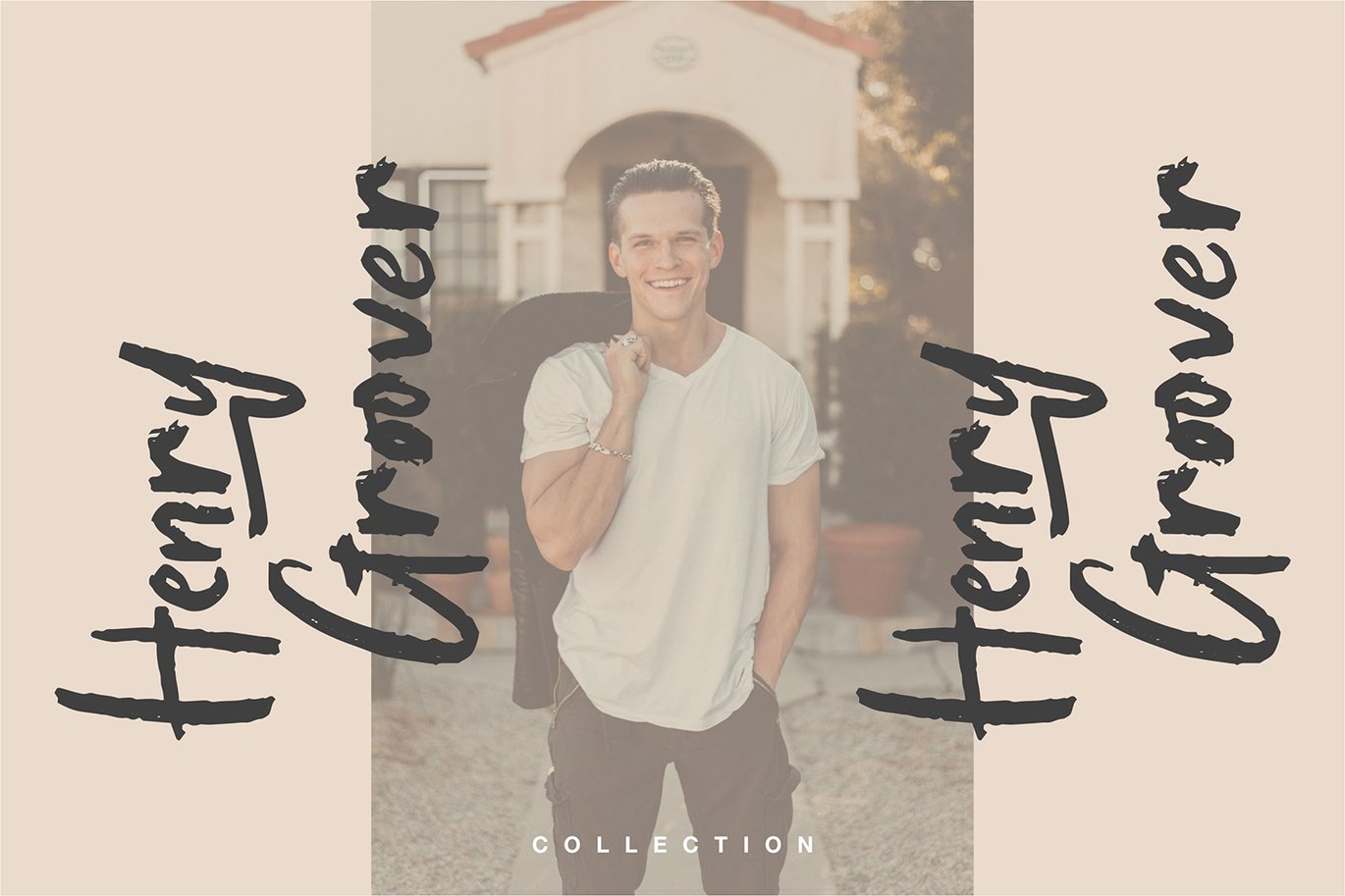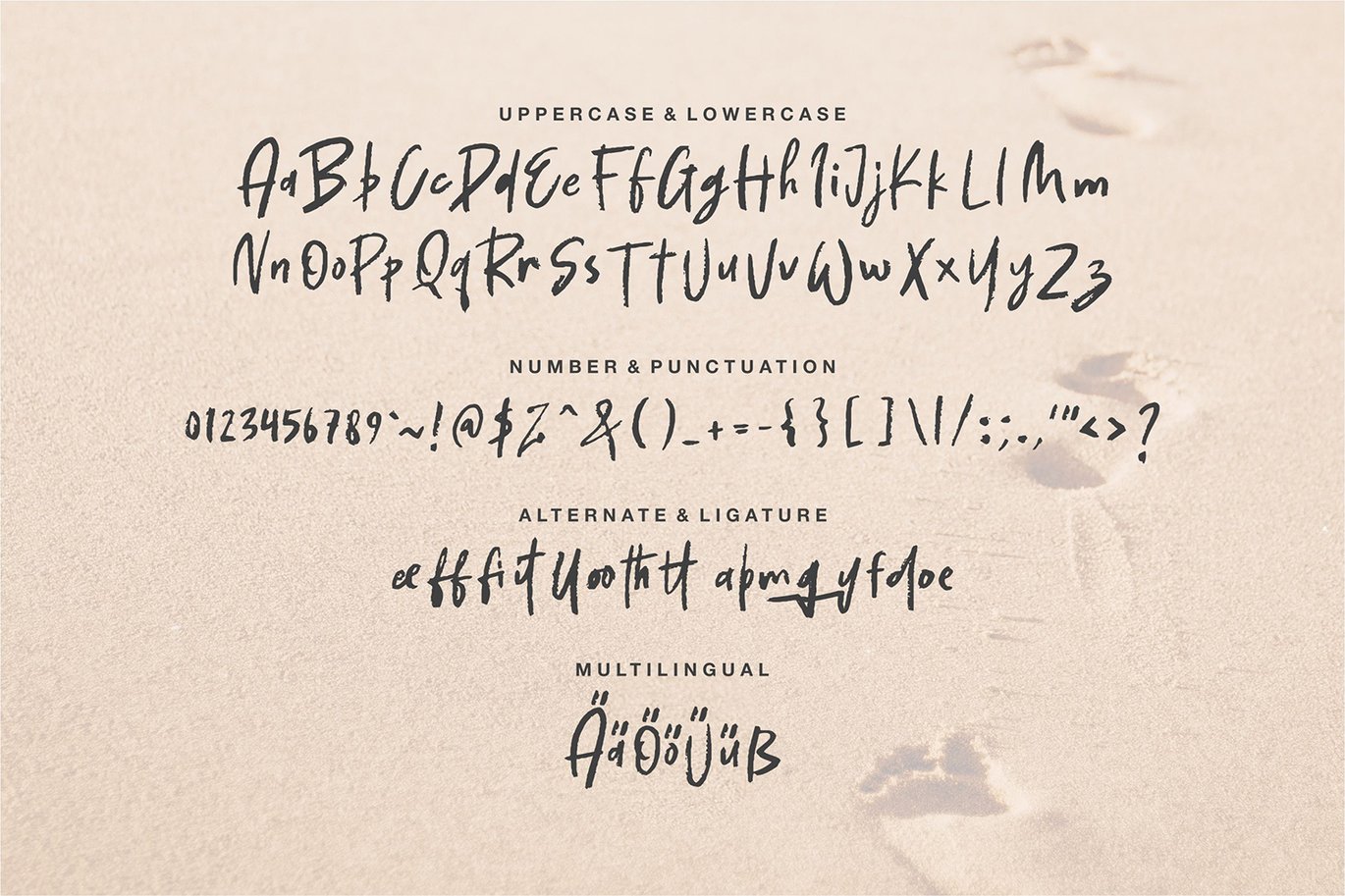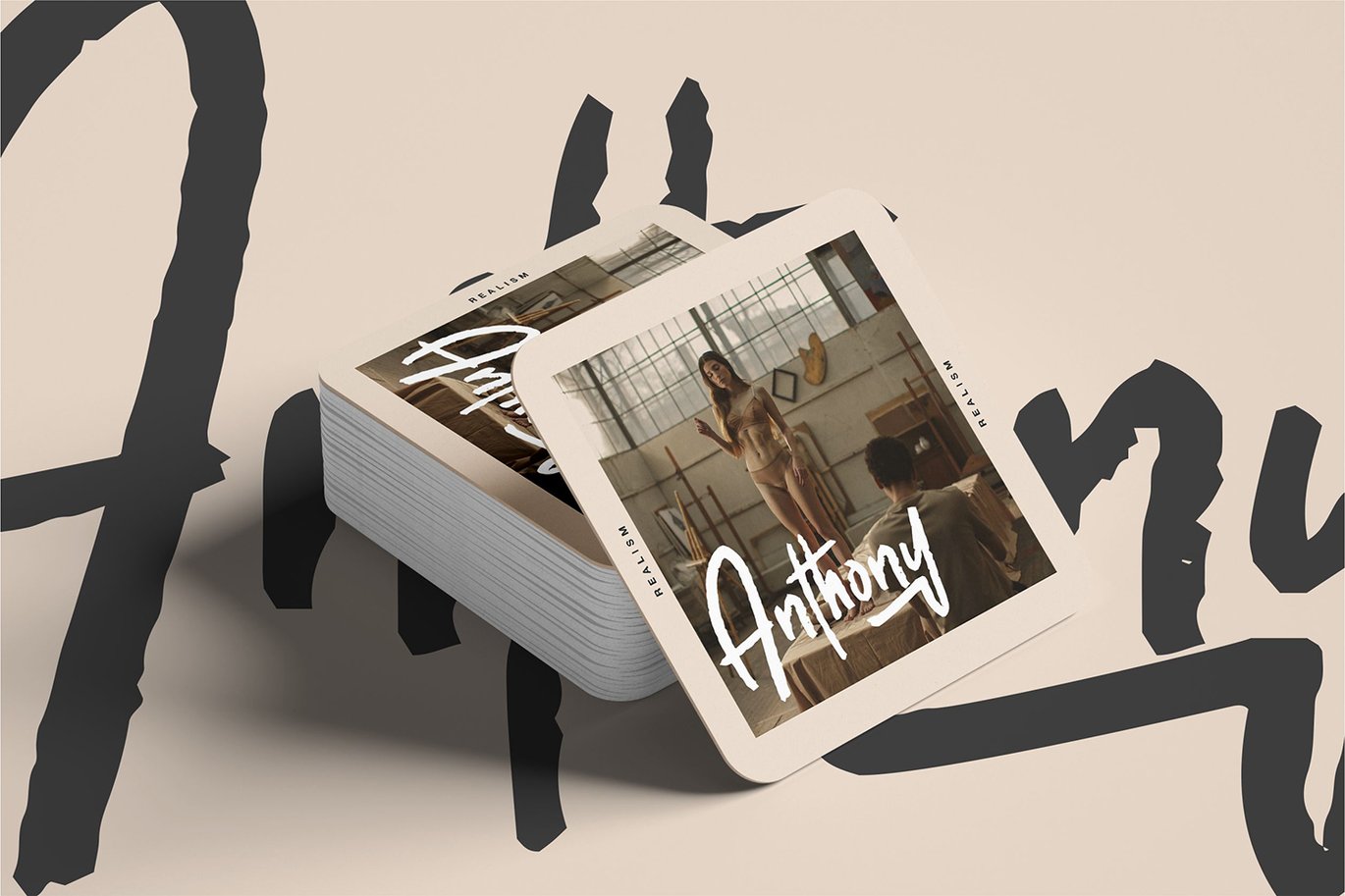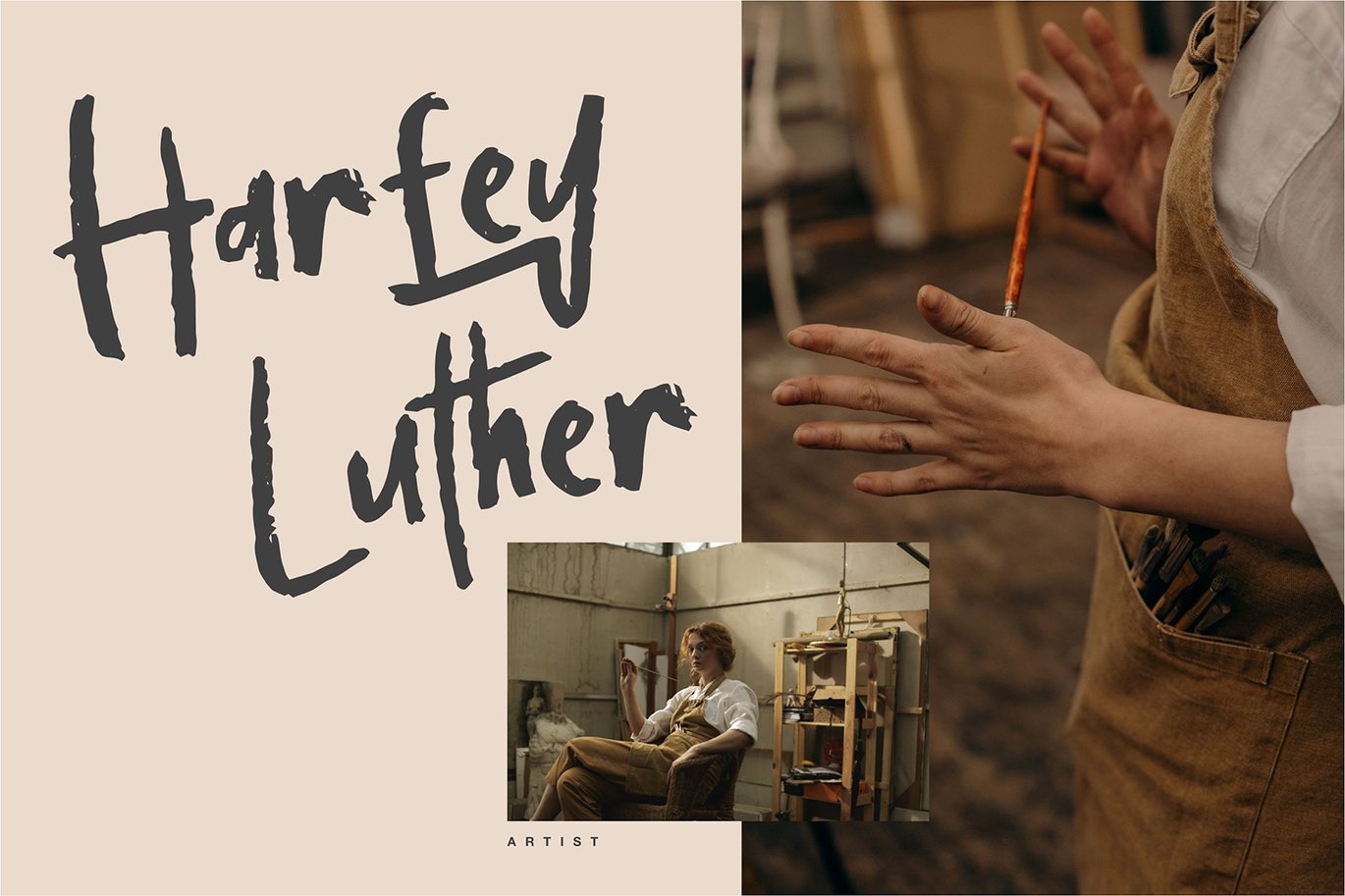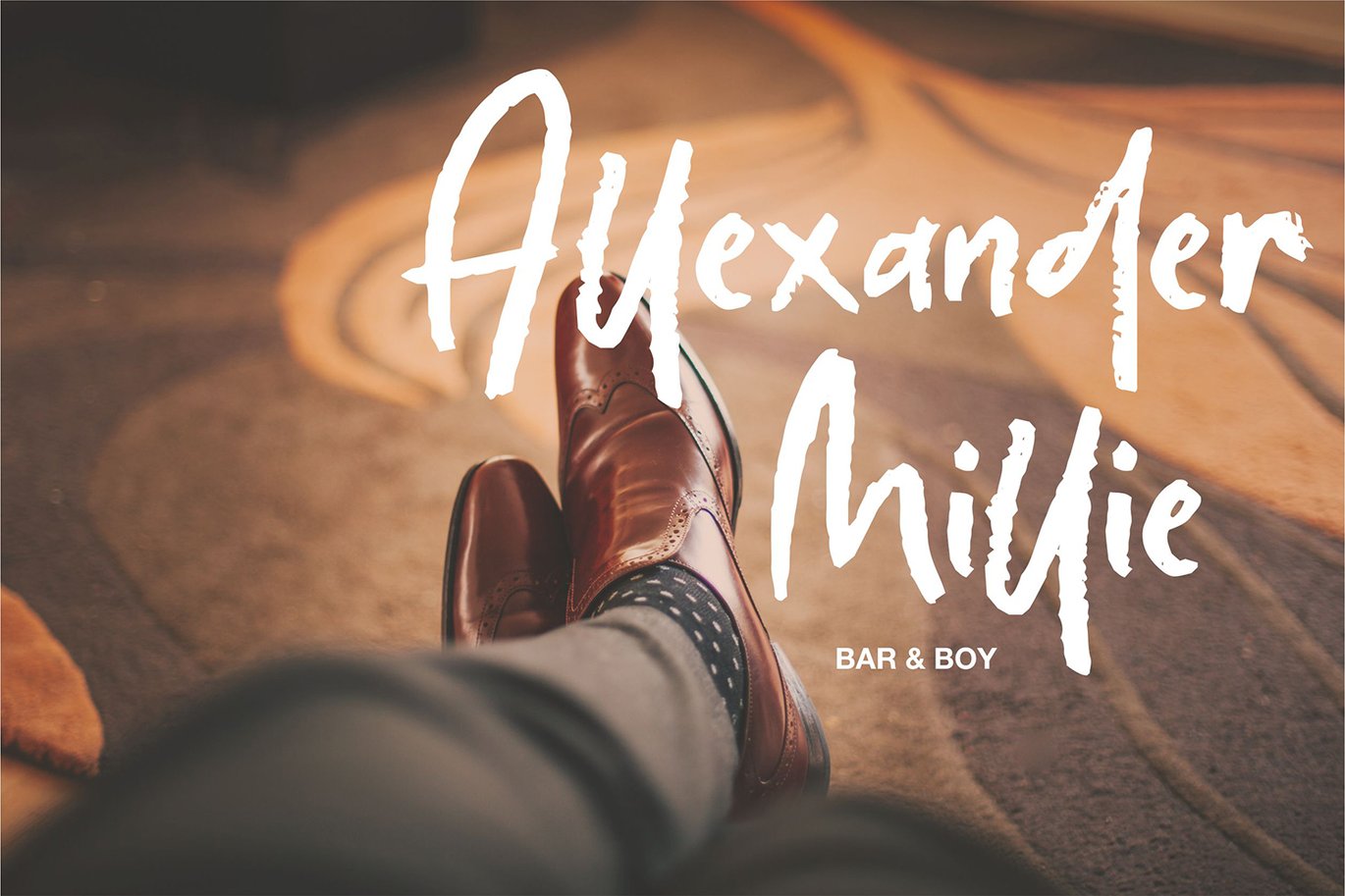
Magill | Handdraw Brush Font
Magill | Handdraw Brush Font with a calligraphy style, So beautiful on invitation like greeting cards, branding materials, business cards, quotes, posters, and more!